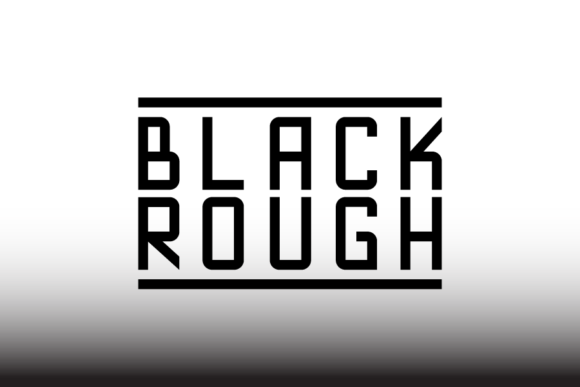
Blackrough Font: A Bold and Elegant Sans Serif Font with a Distinctive Look
Are you looking for a font that can add a touch of sophistication and elegance to your designs? Look no further than the Blackrough font. This bold and elegant sans serif font has a distinctive look that is sure to inspire your creativity. In this article, we’ll take a closer look at the Blackrough font, its unique charm, and how you can use it to elevate your designs.
What is Blackrough Font?
Blackrough font is a sans serif font that is characterized by its bold and elegant appearance. It has a distinctive look that sets it apart from other fonts, making it a great choice for designers who want to add a touch of sophistication to their designs. The font is perfect for headlines, titles, and other display text, and it’s also suitable for use in branding, advertising, and marketing materials.
Unique Features of Blackrough Font
So, what makes Blackrough font so unique? Here are a few of its standout features:
- Bold and Elegant Appearance: Blackrough font has a bold and elegant appearance that is sure to grab attention. Its sans serif design gives it a clean and modern look that is perfect for a wide range of design applications.
- Distinctive Letterforms: The letterforms in Blackrough font are distinctive and stylish, with a unique charm that sets them apart from other fonts. The font’s letterforms are carefully crafted to create a sense of elegance and sophistication.
- High Legibility: Despite its bold and elegant appearance, Blackrough font is highly legible, even at small sizes. This makes it a great choice for use in body text, as well as display text.
How to Use Blackrough Font
Blackrough font is a versatile font that can be used in a wide range of design applications. Here are a few ideas for how you can use it:
- Headlines and Titles: Blackrough font is perfect for use in headlines and titles, where its bold and elegant appearance can help grab attention.
- Branding and Advertising: The font’s distinctive look makes it a great choice for use in branding and advertising materials, such as logos, billboards, and magazine ads.
- Marketing Materials: Blackrough font can also be used in marketing materials, such as brochures, flyers, and social media graphics.
- Web Design: The font’s high legibility makes it a great choice for use in web design, where it can be used for headings, titles, and other display text.
Tips for Pairing Blackrough Font with Other Fonts
When using Blackrough font, it’s often a good idea to pair it with other fonts to create visual interest and contrast. Here are a few tips for pairing Blackrough font with other fonts:
- Pair with a Serif Font: Pairing Blackrough font with a serif font can create a nice contrast between the bold and elegant sans serif design of Blackrough and the more traditional look of the serif font.
- Pair with a Script Font: Pairing Blackrough font with a script font can add a touch of elegance and sophistication to your designs.
- Pair with a Display Font: Pairing Blackrough font with a display font can create a bold and eye-catching look that’s perfect for headlines and titles.
In conclusion, Blackrough font is a bold and elegant sans serif font with a distinctive look that’s sure to inspire your creativity. Its unique features, such as its bold and elegant appearance, distinctive letterforms, and high legibility, make it a great choice for a wide range of design applications. Whether you’re looking to add a touch of sophistication to your designs or simply want to try out a new font, Blackrough font is definitely worth checking out.